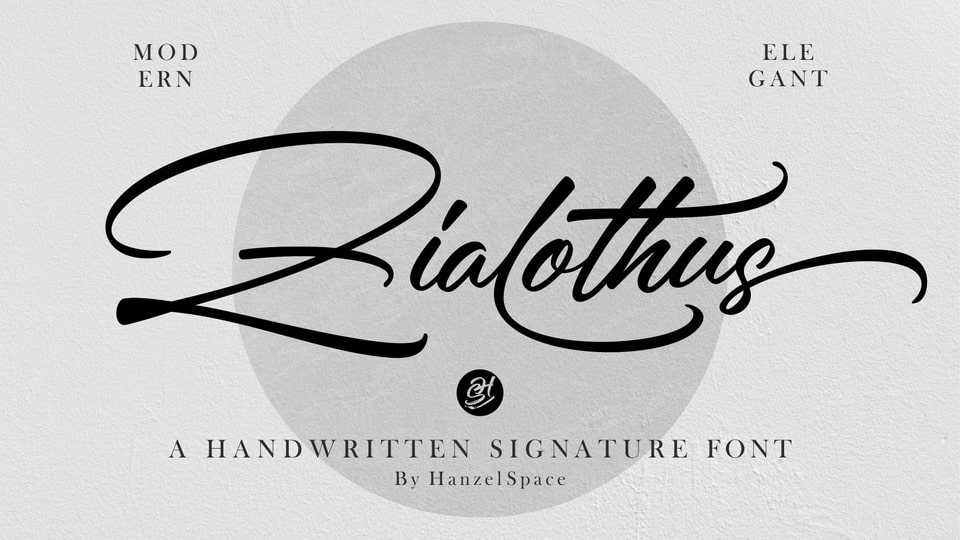
Download Zialothus font, a rather charming handwritten typeface to brighten up your design work. This handwritten typeface equipped with alternate swashes is inspired by naturally made writing.